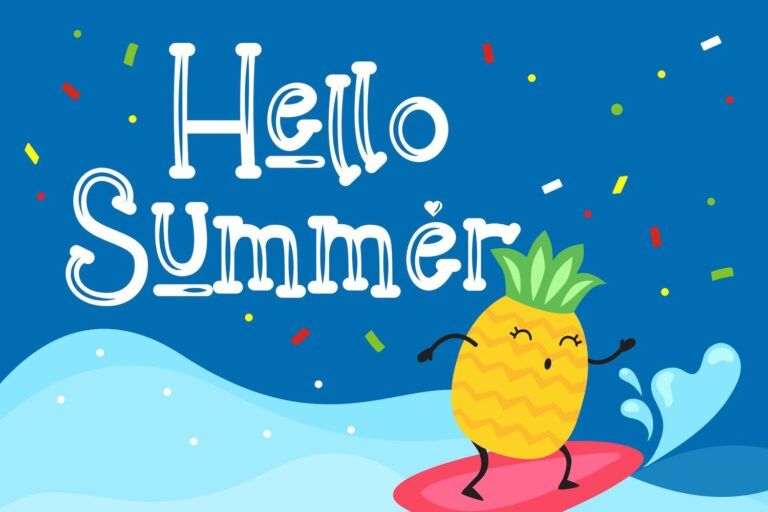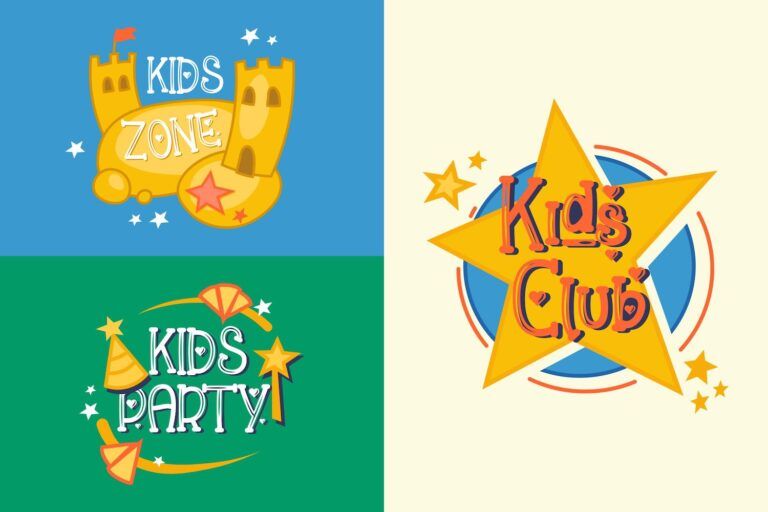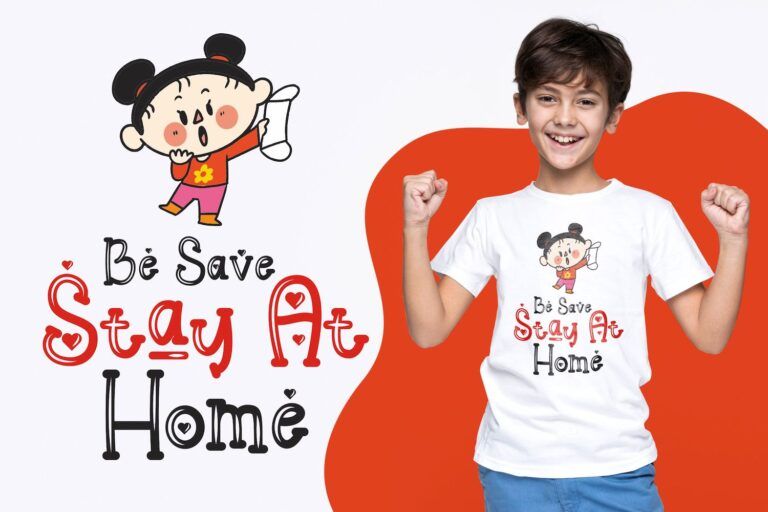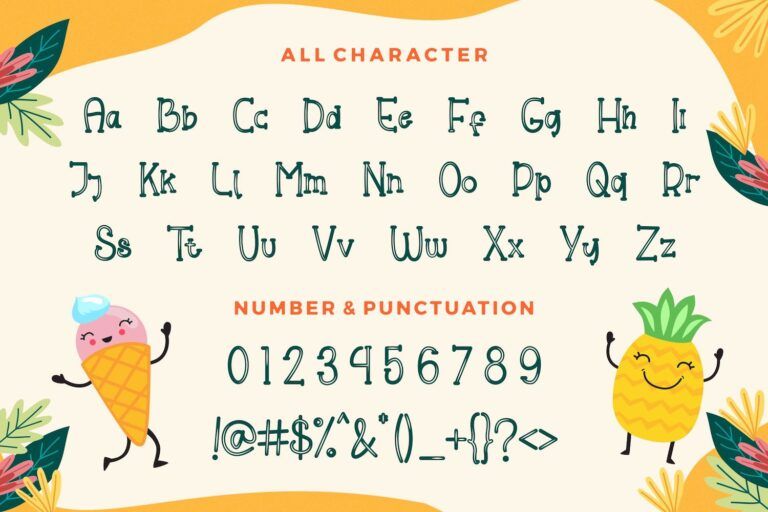
The Helloo Kidos Playful Display Font radiates pure joy with its childlike charm and expressive shapes. Rounded curves, bouncy letterforms, and whimsical stylistic sets—like heart-filled counters and swashy tails—make this font a delightful tool for capturing a kid-friendly atmosphere. Each character feels hand-drawn yet structured, balancing fun with readability. Its consistency and clean stroke weight allow for use in both uppercase and lowercase layouts without overwhelming young readers.
Helloo Kidos is made for projects that want to speak directly to children or evoke a sense of innocence and fun. Perfect for school posters, classroom labels, birthday invitations, educational books, online learning platforms, toy packaging, and cartoon branding, this font brings warmth and energy to every letter. With built-in alternates and ligatures, you can add even more personality to titles and headlines—whether you're designing for a unicorn-themed party or a back-to-school campaign.
If you're searching for a font that combines friendliness, legibility, and playful customization, the Helloo Kidos Playful Display Font is a versatile and cheerful pick.